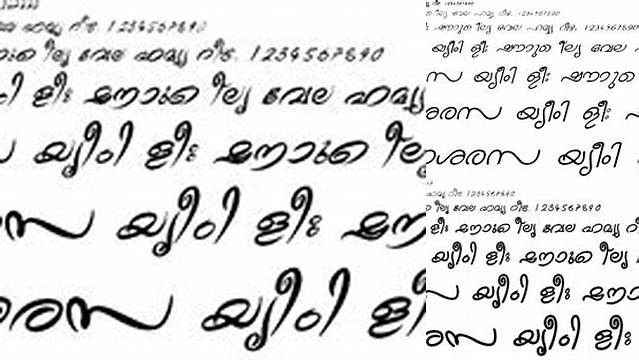
What is the ML-TT Font?
ML-TT font, often a cornerstone in specific digital typography needs, refers to a family of fonts developed to meet particular linguistic or technical requirements. Before diving into how to snag this font for free, let’s understand what makes it special. Often, these fonts are crafted to support specific character sets or encoding standards, making them invaluable for projects that demand precision and accuracy in displaying text. In essence, ML-TT fonts bridge the gap between standard font offerings and specialized textual demands, ensuring that every character renders correctly and legibly. This is particularly important in fields like linguistics, archival work, and software development where character representation is paramount. Choosing the right ML-TT font can significantly enhance the readability and professionalism of your work, avoiding common pitfalls associated with using generic fonts that lack the necessary glyphs or stylistic nuances. As digital communication becomes increasingly global, the demand for such specialized fonts will only continue to grow, underscoring the importance of understanding their capabilities and appropriate use cases. The creation of ML-TT fonts often involves meticulous attention to detail, with each glyph carefully designed to maintain consistency and clarity across different sizes and resolutions. This dedication to quality ensures that the font remains legible and aesthetically pleasing, even in demanding visual environments. Furthermore, ML-TT fonts often undergo rigorous testing to ensure compatibility with various operating systems and software applications. This commitment to interoperability is crucial for users who need to deploy the font across different platforms without encountering rendering issues or unexpected errors. Whether you are working on a research paper, developing a multilingual website, or creating digital archives, the right ML-TT font can make all the difference in ensuring that your text is displayed accurately and professionally. Its availability as a free download further democratizes access to high-quality typography, enabling individuals and organizations with limited resources to benefit from its unique capabilities.
Why Choose the ML-TT Font?
When it comes to fonts, you might wonder, “Why should I choose the ML-TT font over others?” Well, the ML-TT font often stands out due to its unique characteristics and specific applications. The ML-TT font is often designed to support a broader range of characters or symbols than standard fonts. This makes them particularly useful in fields like linguistics, mathematics, and software development, where specialized characters are frequently used. For instance, if you're working on a research paper that includes phonetic symbols or mathematical equations, an ML-TT font can ensure that these characters are displayed correctly and consistently. Furthermore, the ML-TT font may incorporate specific stylistic elements that enhance readability and visual appeal. These stylistic choices can make the font more suitable for certain types of documents or projects. For example, a font designed for technical documentation might prioritize clarity and legibility, while a font designed for creative writing might emphasize aesthetic appeal. Beyond character support and stylistic considerations, ML-TT fonts often offer superior rendering quality across different devices and platforms. This means that the font will look crisp and clear whether it's displayed on a high-resolution monitor or a mobile device. This level of consistency is particularly important for projects that will be viewed by a wide audience on various devices. The ML-TT font is also frequently optimized for use in specific software applications or operating systems. This optimization can improve performance and stability, ensuring that the font works seamlessly within your chosen environment. For instance, a font designed for use in Adobe Photoshop might be optimized for rendering complex graphics and effects. In addition to these technical advantages, the ML-TT font may also be chosen for its cultural or historical significance. For example, a font based on a historical script or alphabet can add a unique sense of authenticity and context to your project. This can be particularly valuable for projects that aim to preserve or celebrate cultural heritage. Ultimately, the choice of whether to use an ML-TT font depends on your specific needs and priorities. If you require specialized character support, superior rendering quality, or a unique stylistic aesthetic, then an ML-TT font may be the perfect choice for you. By carefully considering your requirements and evaluating the available options, you can select a font that enhances the visual appeal and readability of your project.